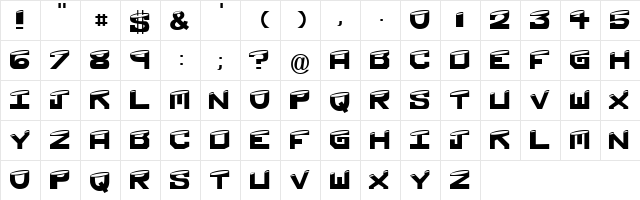
Shaved Regular Font Preview
Shaved Regular
Design Context for Shaved Typeface
Shaved is a composed and adaptable typeface that performs quietly and consistently across a wide range of design contexts.